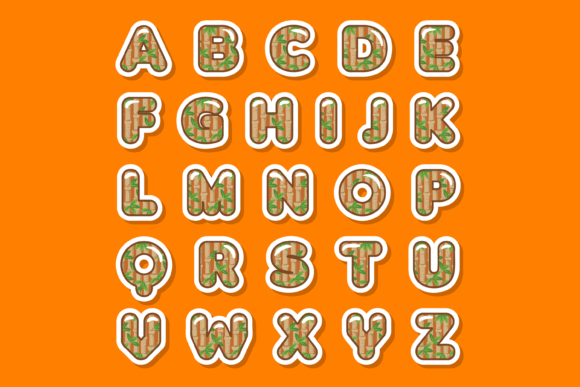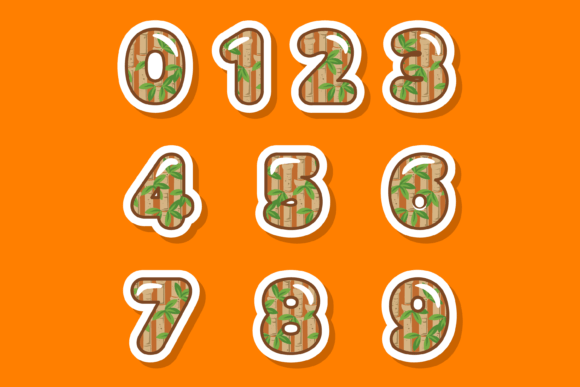
Unleash Your Creativity with the Bamboo Font
This gorgeous color font is designed to add a touch of elegance and sophistication to any project. Whether you’re a seasoned designer or a DIY enthusiast, the Bamboo Font is the perfect addition to your creative toolkit. With its unique blend of natural and modern elements, it’s a valuable asset for anyone looking to elevate their designs and stand out from the crowd.
- Character Set: The font includes a wide range of characters, including Latin, Cyrillic, and Greek alphabets, as well as punctuation marks and symbols.
- Unique Characteristics: Bamboo Font features a distinctive, naturalistic design that mimics the appearance of bamboo, with intricate details and textures that evoke a sense of organic elegance.
- Font Weight and Style: Bamboo Font includes multiple font weights, from Light to Bold, as well as italic and bold-italic styles, allowing for a range of design applications.
I recently had the chance to work with the Bamboo Font, and I have to say it’s a unique addition to any design project. ✨ Here are some things that really stood out to me.
- Organic feel: The Bamboo Font has a natural, earthy feel that works well for designs that need a bit of a organic touch.
- Customizable: The font is highly customizable, allowing you to adjust the weight, width, and even the stem thickness to suit your design needs.
Of course, no font is perfect, and the Bamboo Font has its limitations. ⚠️ Here are a few things to keep in mind.
- Limited legibility: At smaller font sizes, the Bamboo Font can become a bit hard to read, which may limit its use in certain applications.
- Not ideal for body text: While the font works well for headings and titles, it may not be the best choice for large blocks of body text due to its organic feel and limited legibility.
Overall, I think the Bamboo Font is a great addition to any designer’s toolkit, especially for projects that require a unique, organic feel. With a bit of creativity and planning, it can be a real game-changer for the right project.
The Bamboo font is ideal for:
1. Asian-inspired designs, such as Chinese or Japanese-style graphics.
2. Tropical or outdoor-themed designs, such as beach or garden-inspired graphics.
3. Whimsical or playful designs, such as children’s books or nursery rhyme-inspired graphics.